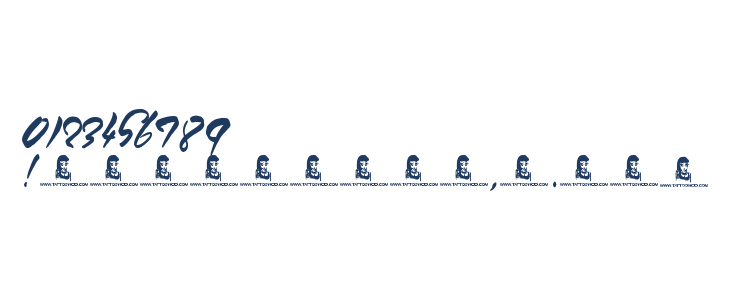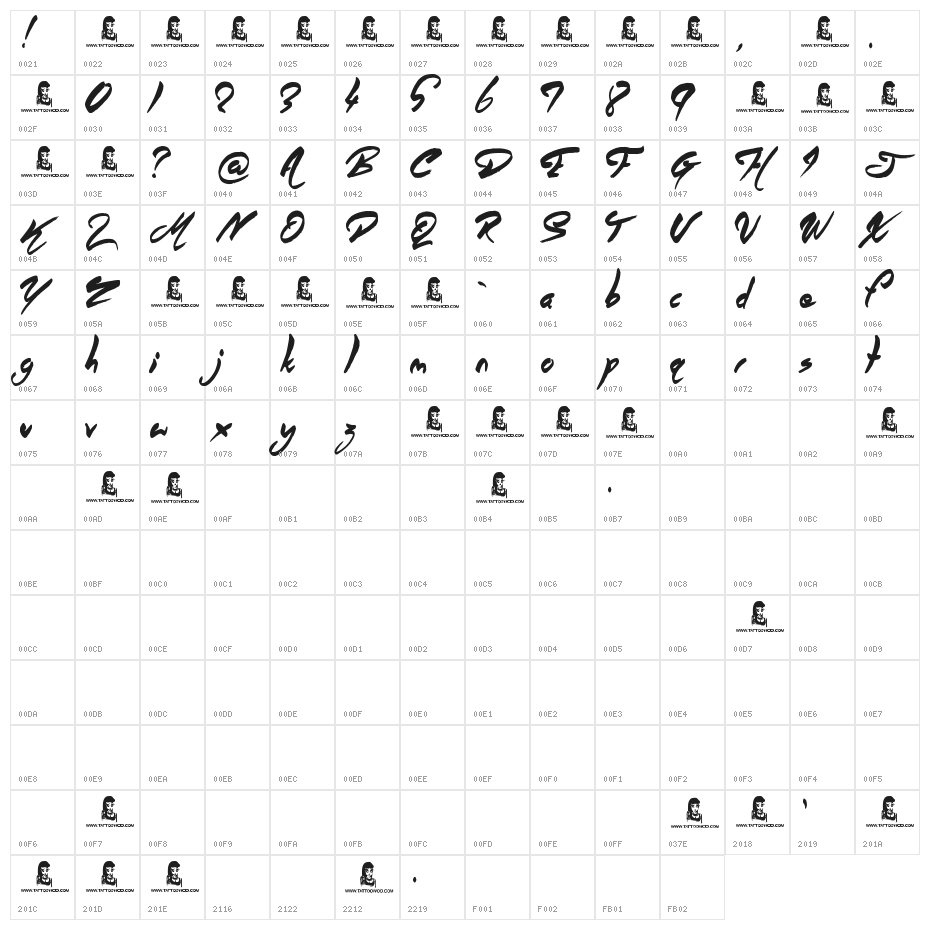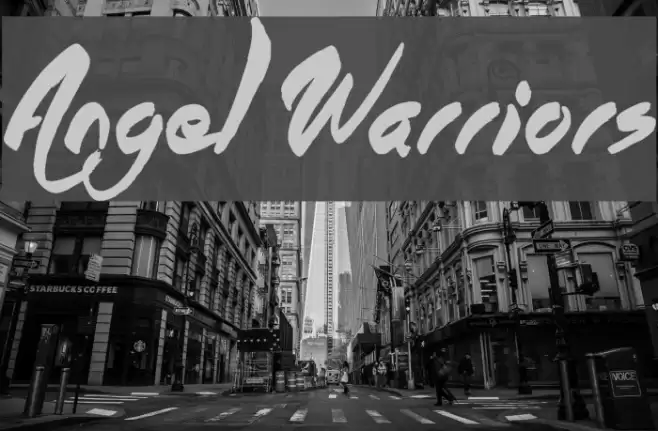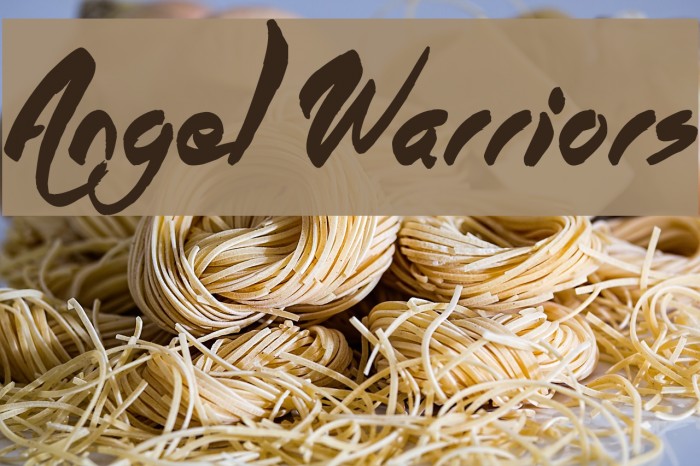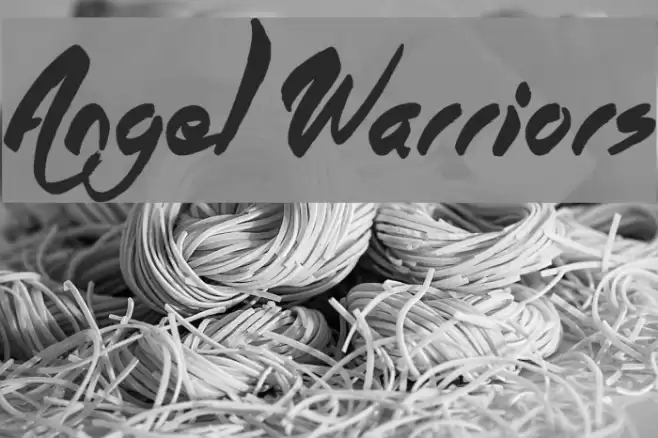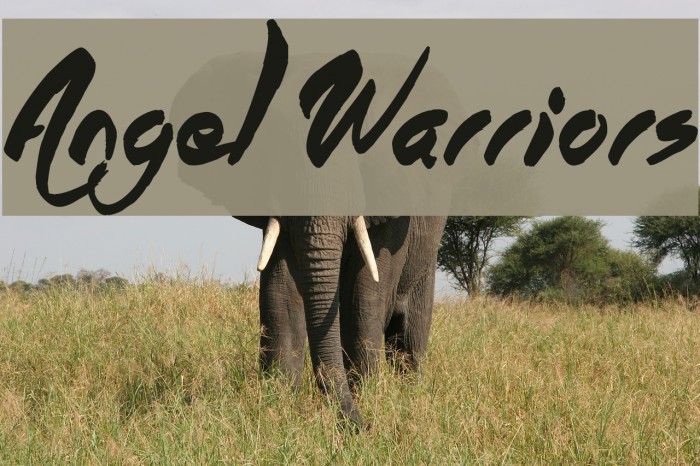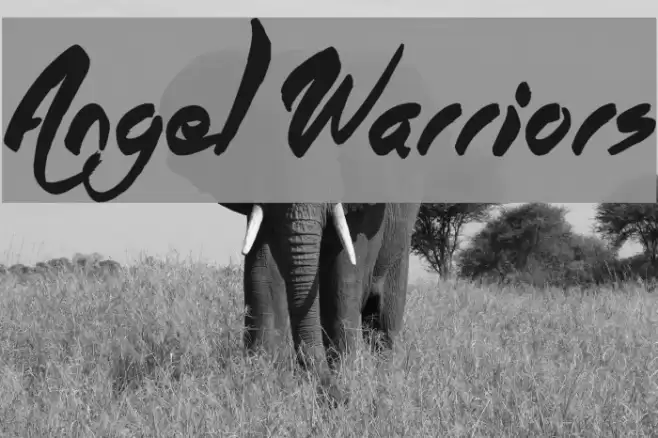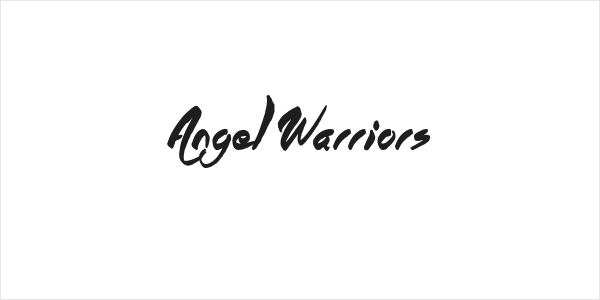
Angel Warriors Font
Angel Warriors Description
This font features a bold, expressive script style with a dynamic and fluid appearance. The characters are designed with a brush-like texture, giving them an artistic and hand-drawn feel. The uppercase letters are particularly striking, with exaggerated curves and flourishes that add a sense of movement and energy. The lowercase letters maintain this fluidity, creating a cohesive and harmonious look. Numbers and special characters are crafted with the same attention to detail, ensuring consistency throughout the font. This style is ideal for projects that require a personal touch or a sense of creativity and flair.